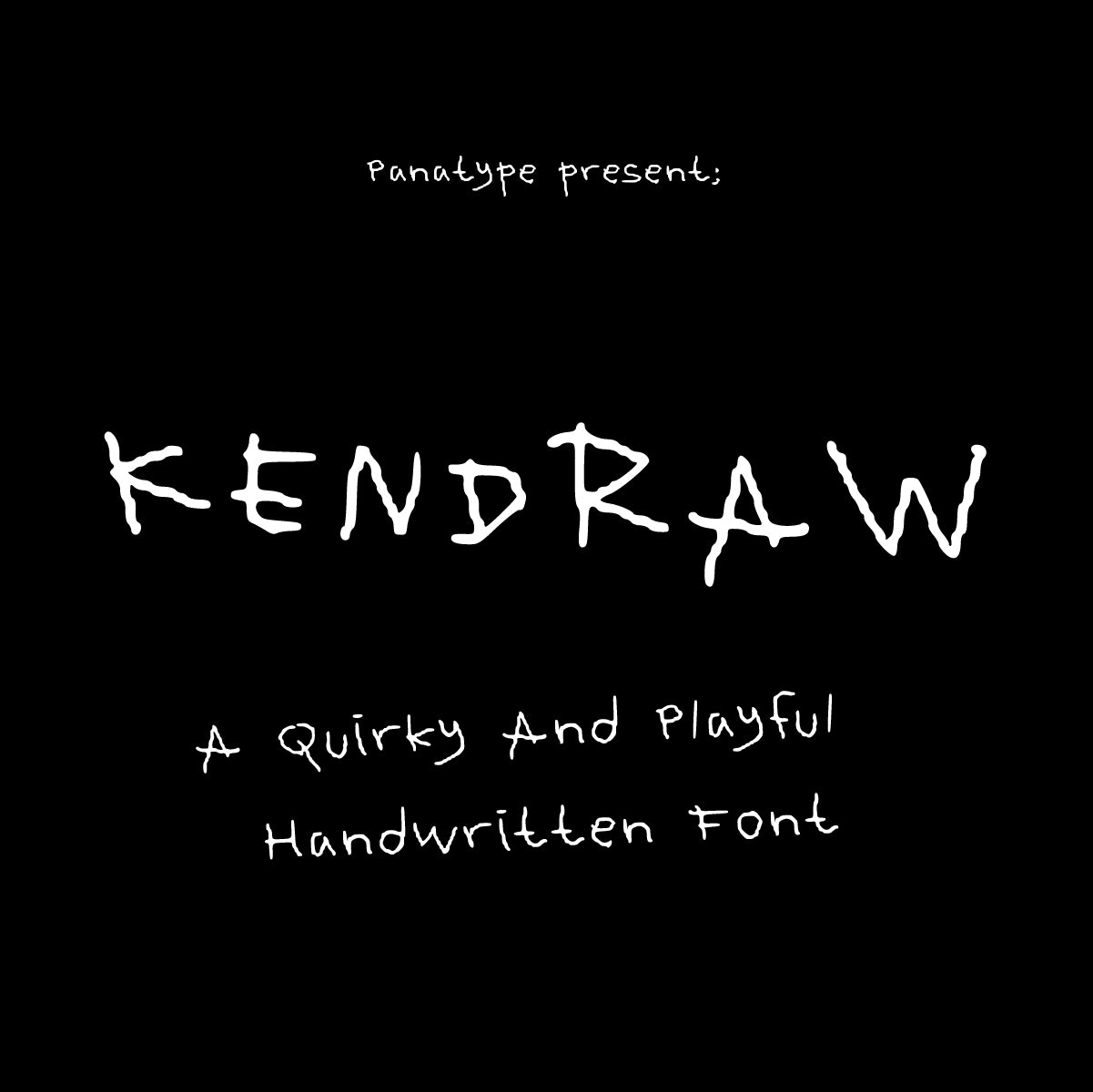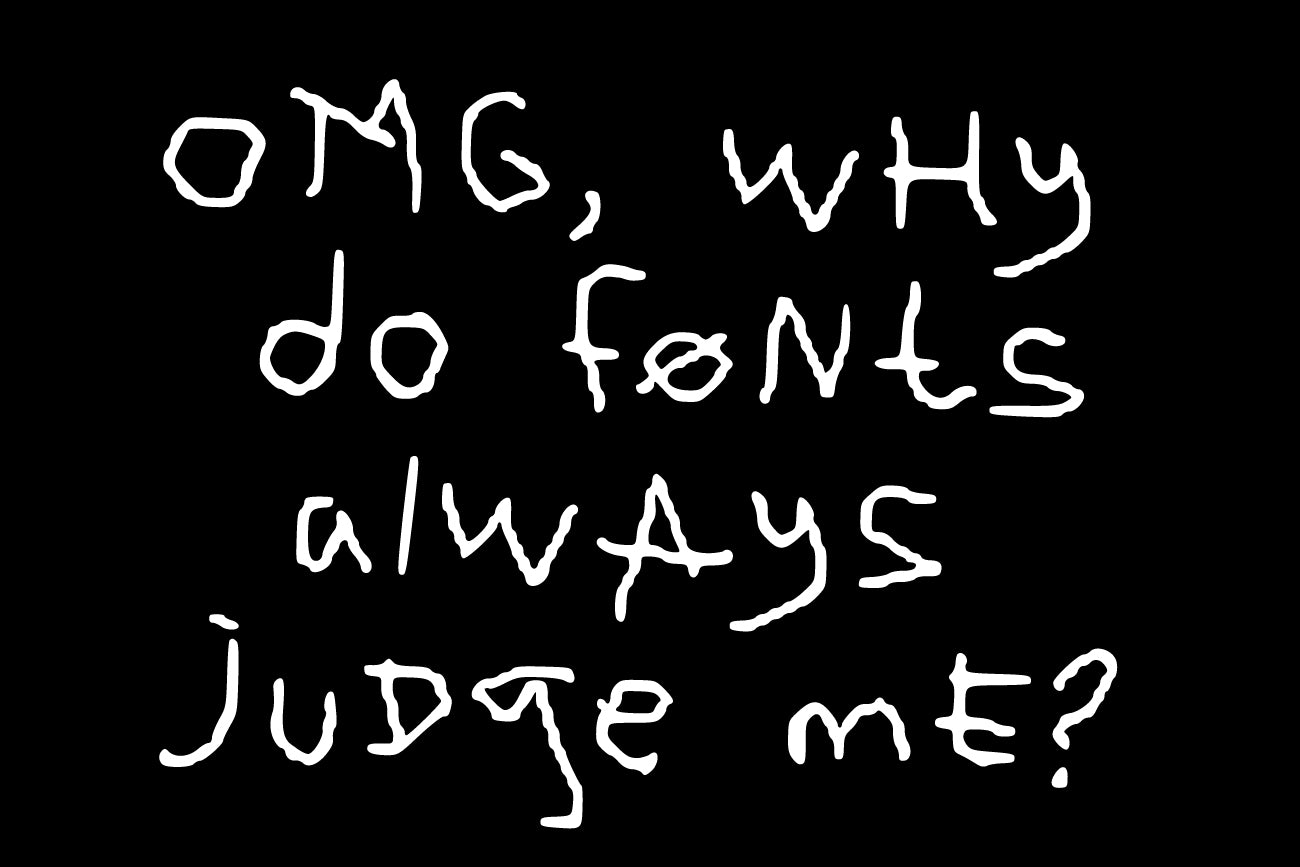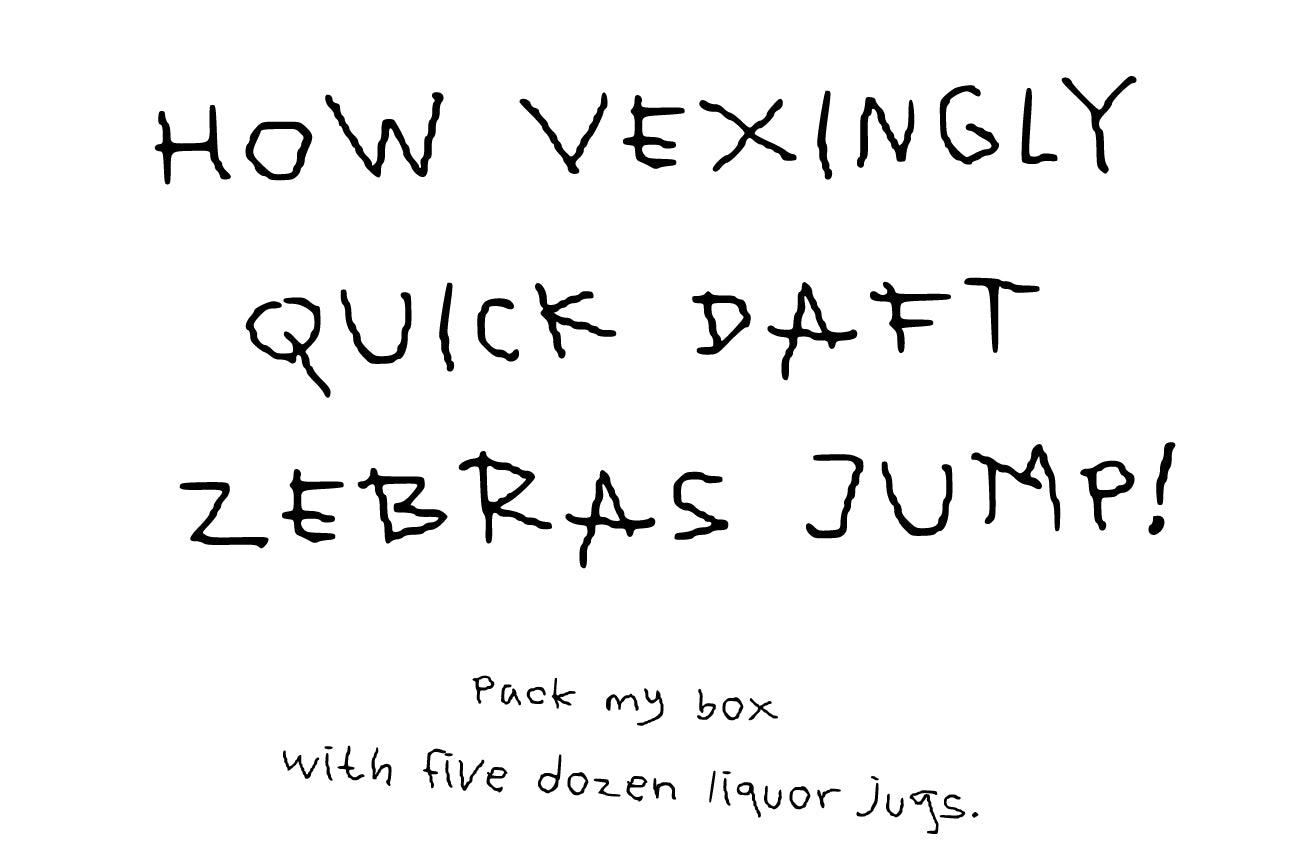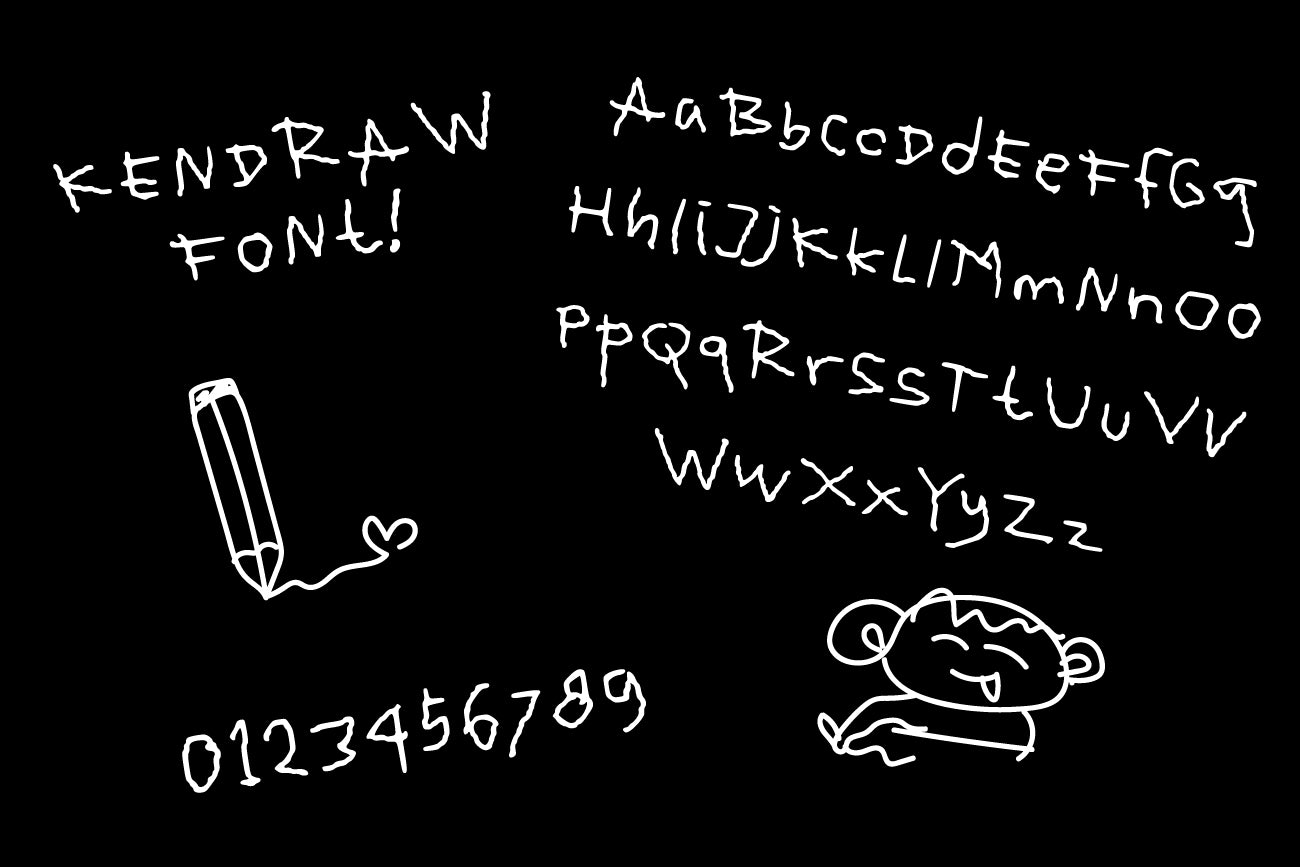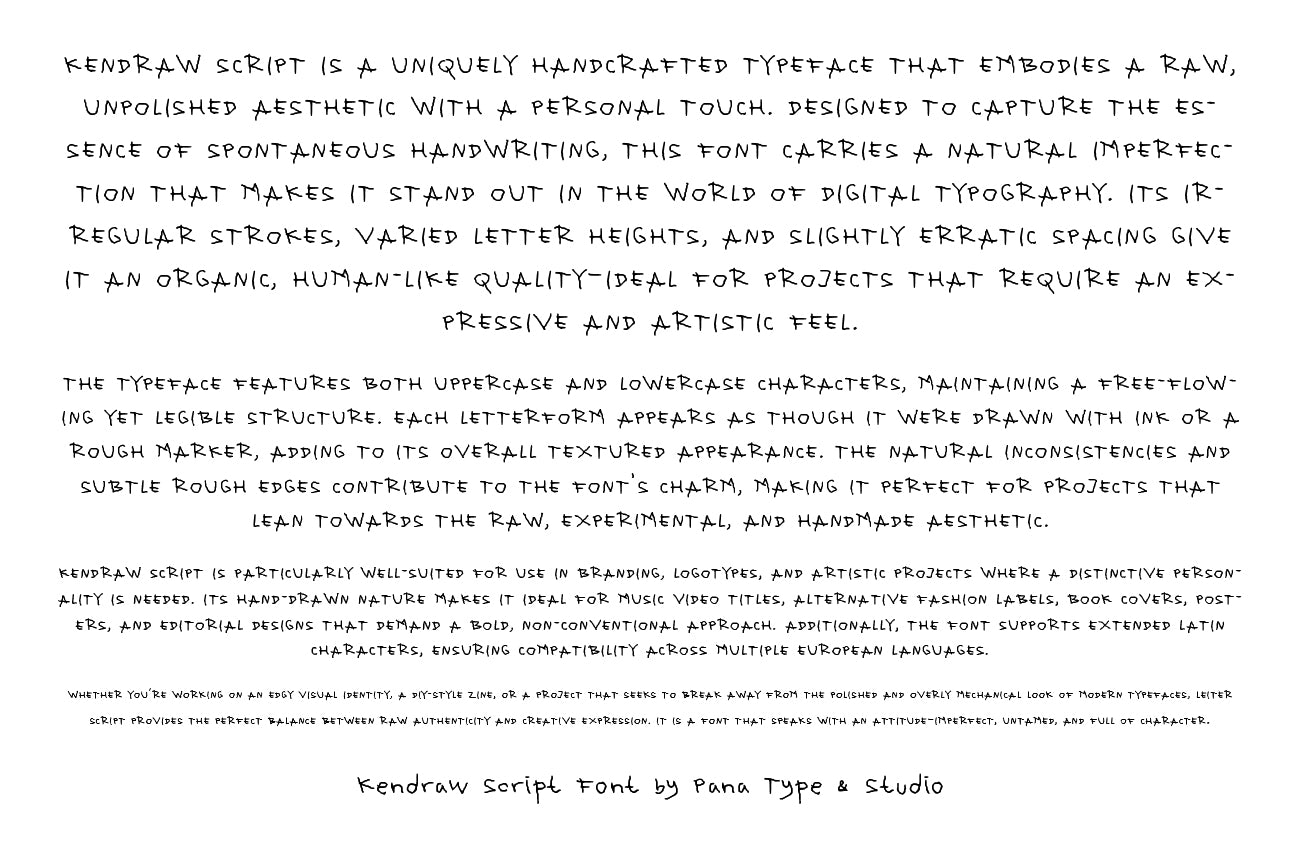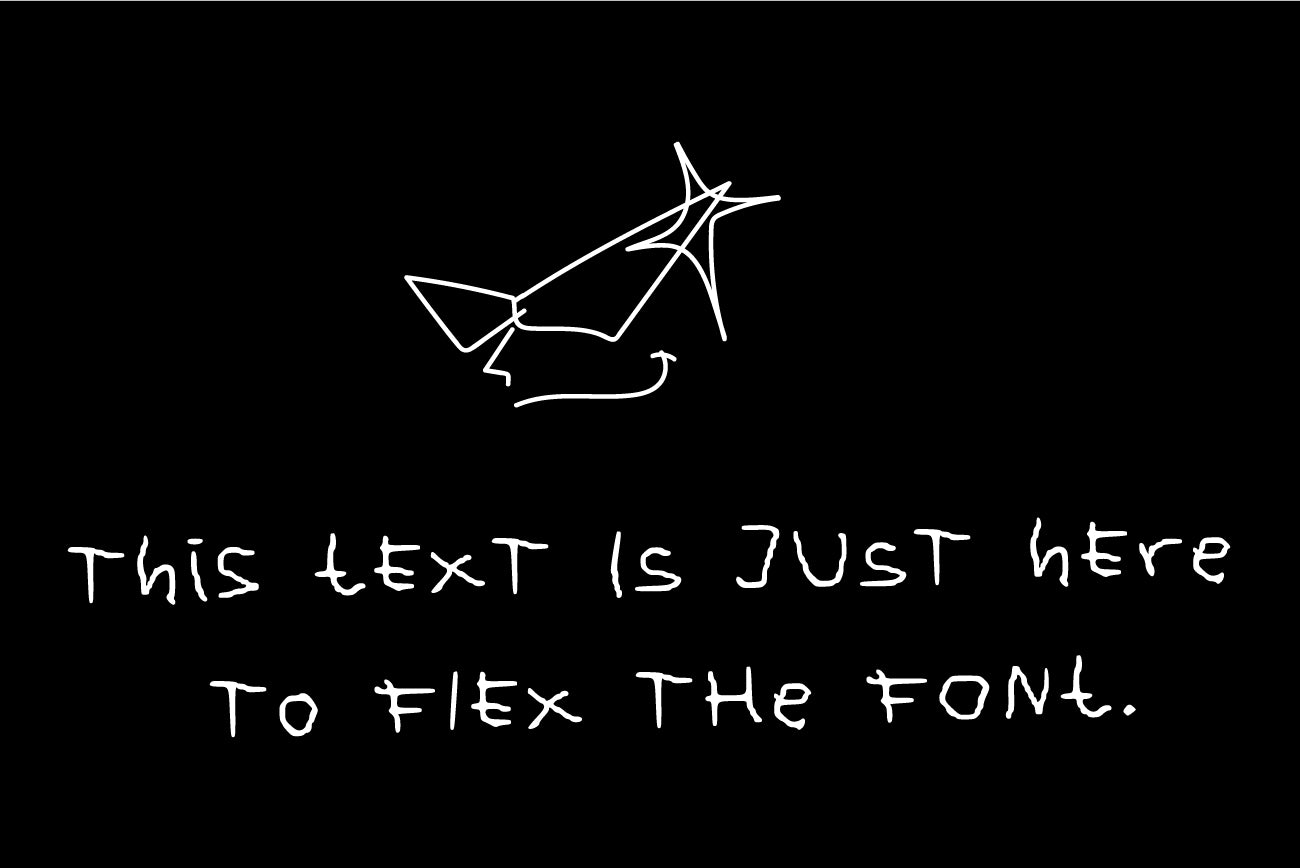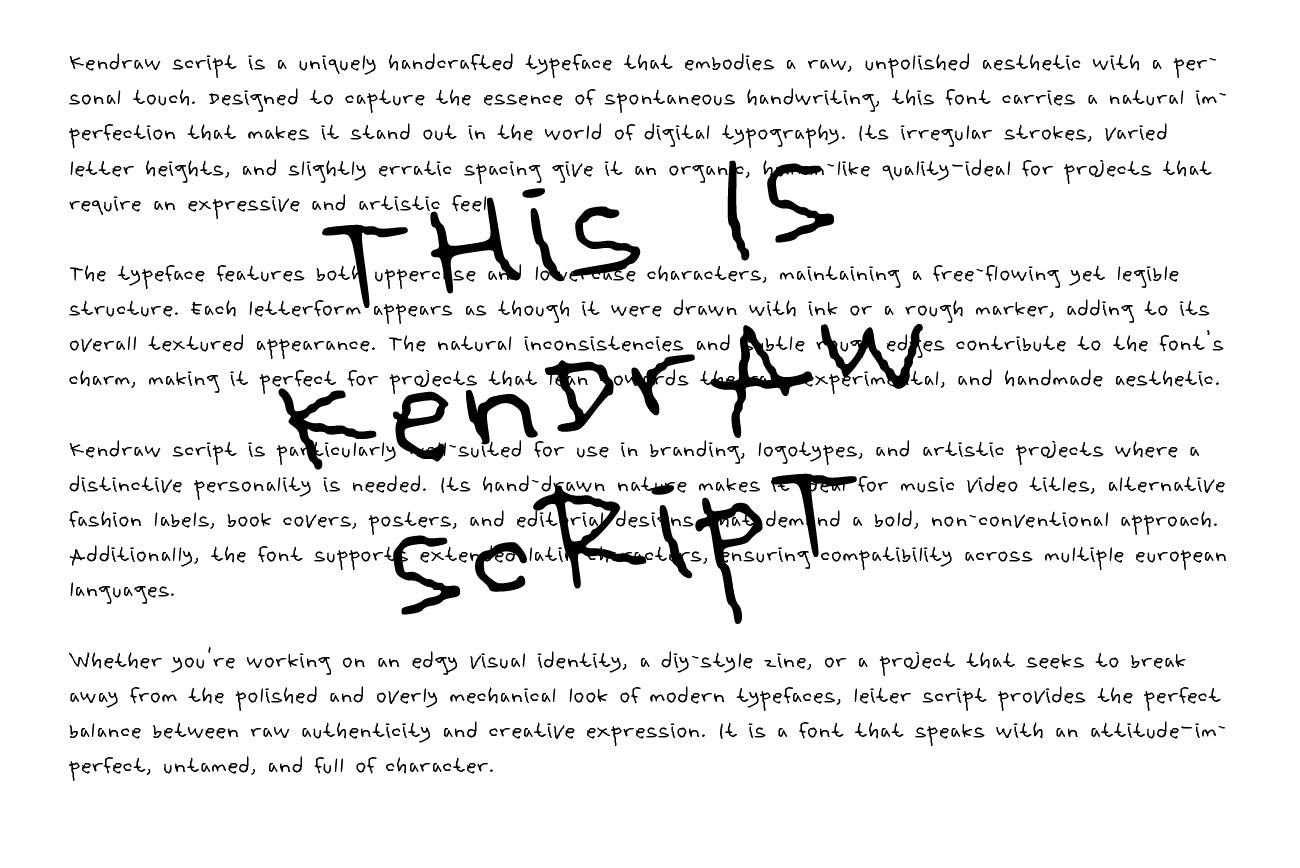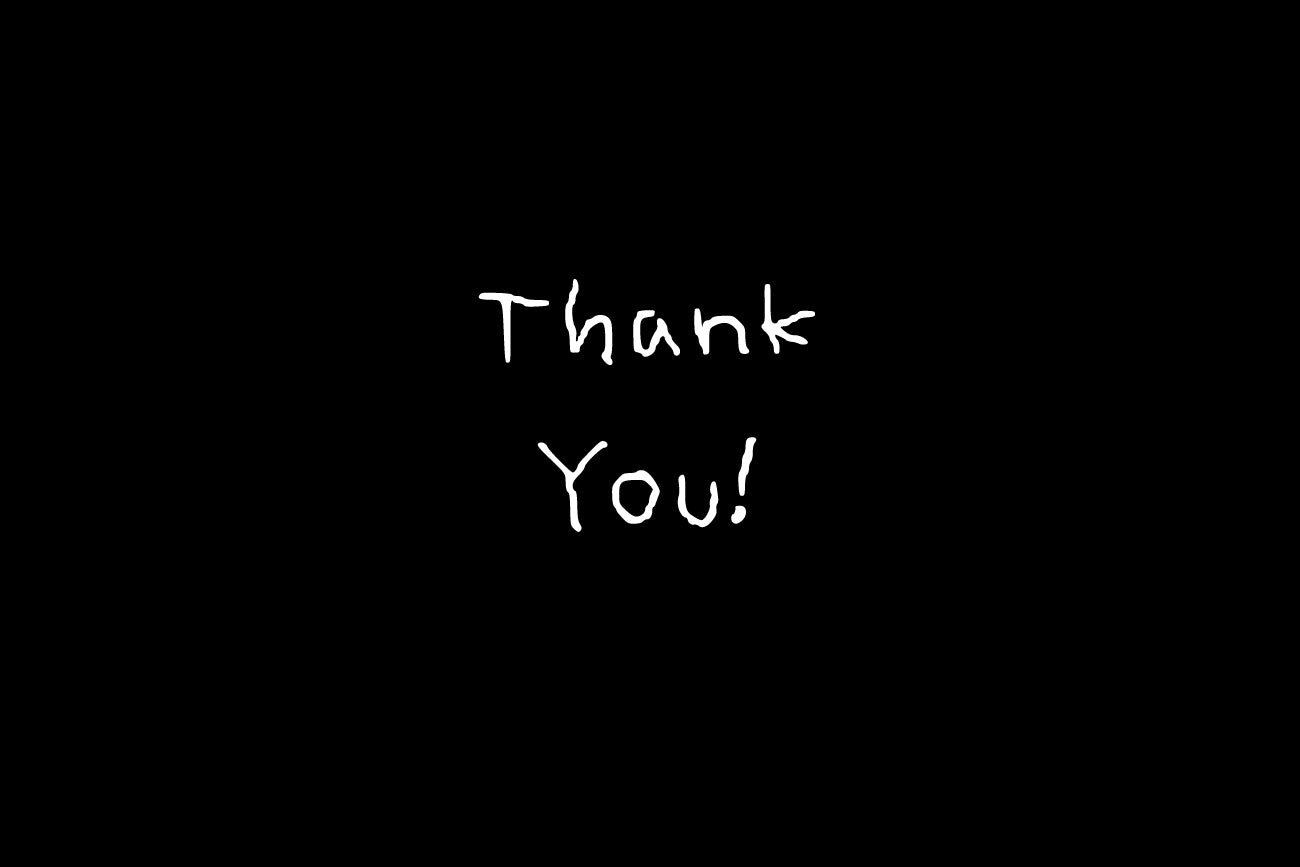
Kendraw - Handwritten Font
Kendraw Font, a raw and expressive handwritten typeface designed to bring an organic, imperfect, and artistic touch to your projects. With its rough strokes and irregular letterforms, this font captures the beauty of spontaneous handwriting, making it the perfect choice for creative branding, hand-drawn logos, album covers, poster designs, and experimental typography.
Kendraw is a handwritten font featuring raw and expressive letterforms with rough strokes, designed to provide an organic and artistic touch to various projects. Its irregular style captures the essence of spontaneous handwriting, making it suitable for creative applications.